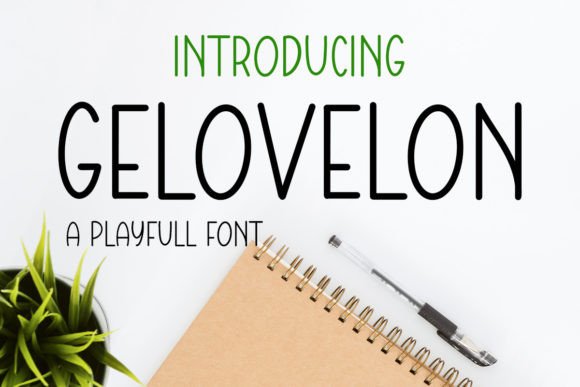
Introducing Gelovelon Font, the ultimate font for creating captivating mascot logos and eye-catching designs that pop. This remarkable display font, expertly crafted by IHD.STD, stands out from the crowd with its clean, bold lines and easy-to-read letterforms, making it a perfect choice for adding a touch of charm and personality to your creative projects.
With Gelovelon Font, you'll have a versatile tool that can transform your ideas into captivating visual masterpieces. Unleash your imagination and let the font's distinct style elevate your designs to new heights. Whether you're creating playful illustrations, lively posters, or unforgettable branding materials, Gelovelon Font will add a touch of whimsy and charisma that's sure to capture attention.
Dive into a world of creative possibilities with Gelovelon Font and experience the joy of creating designs that resonate with your audience. Its effortless readability makes it ideal for a wide range of applications, including invitations, school projects, and branding initiatives. Let Gelovelon Font be your creative companion, guiding you towards designs that leave a lasting impression.
Embrace the power of Gelovelon Font and embark on a creative journey where imagination knows no bounds. Its user-friendly nature makes it accessible to designers of all skill levels, allowing you to create stunning visuals without any hassle. Unlock the potential of Gelovelon Font today and unleash a world of captivating designs that speak to the heart and inspire the mind.